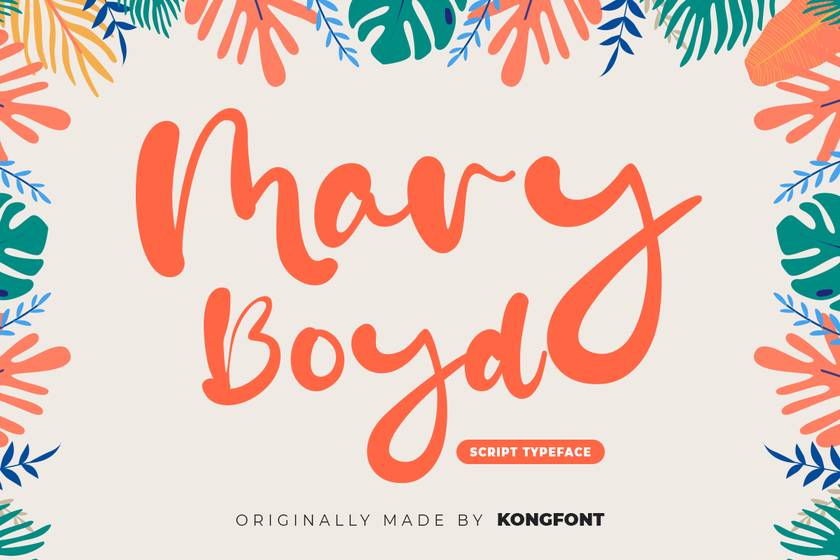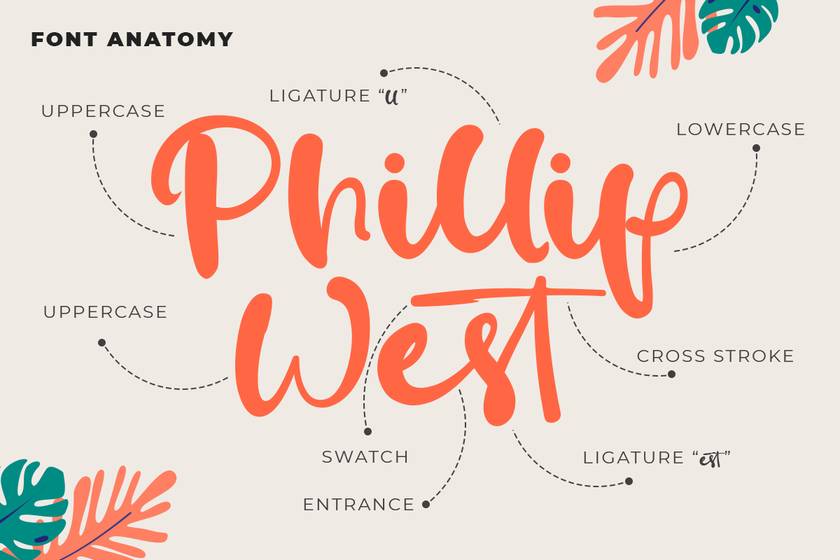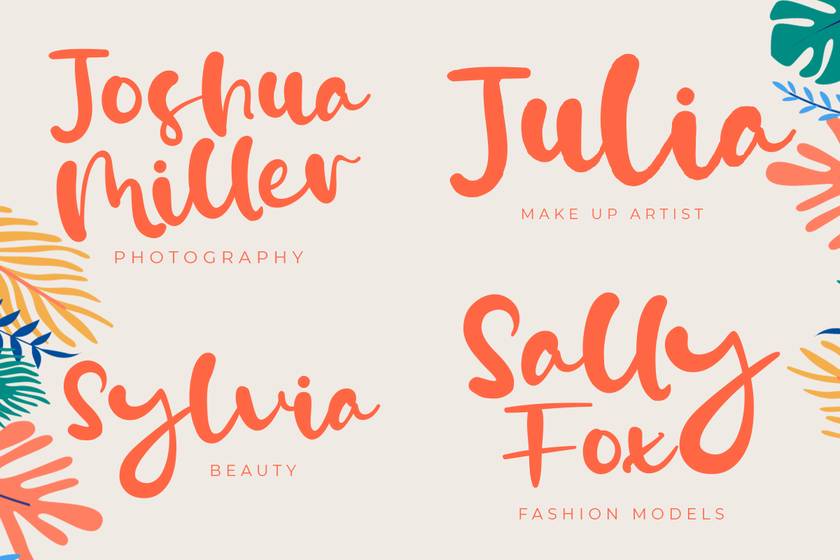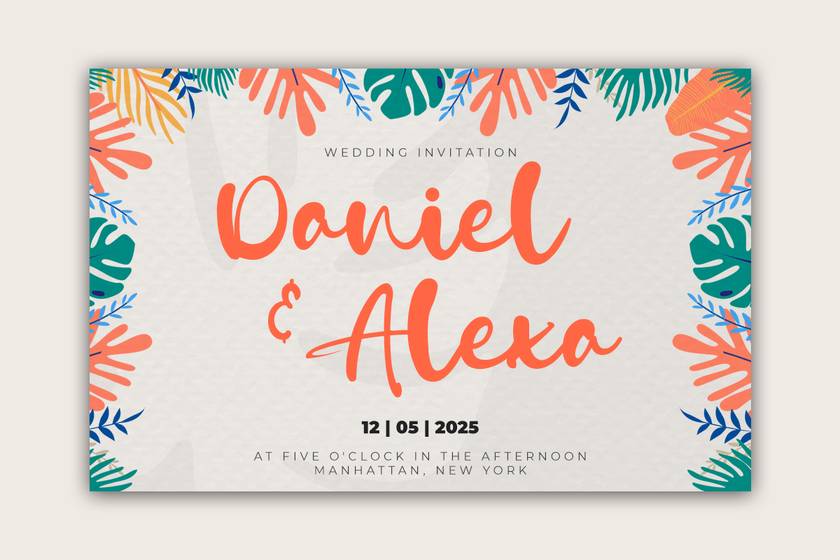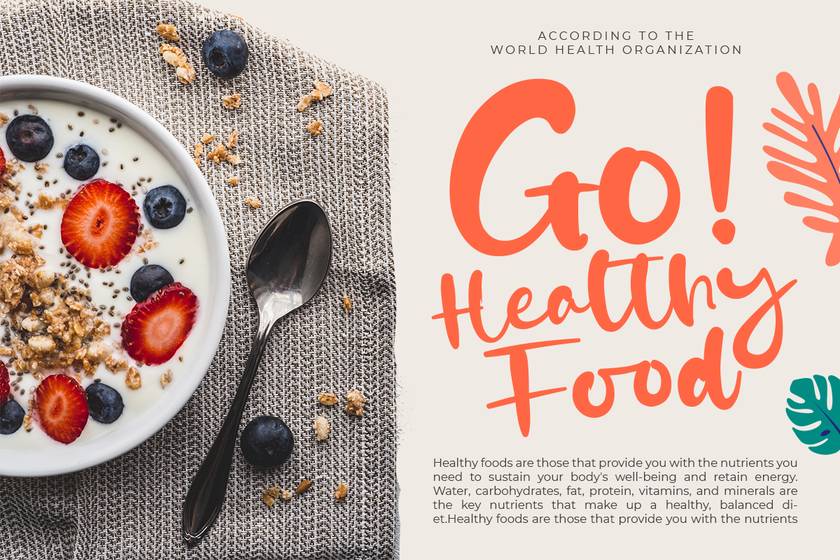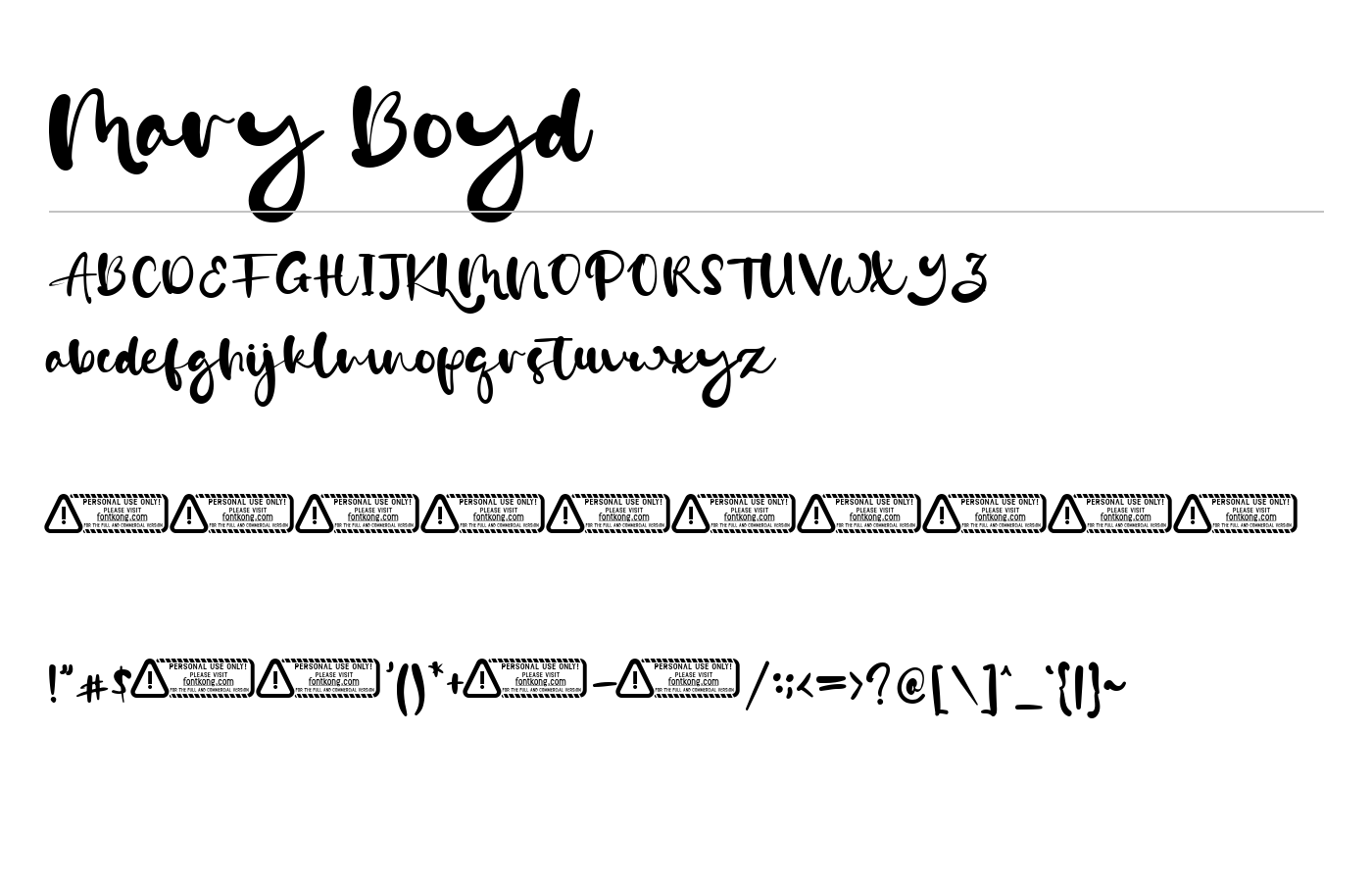
Mary Boyd is a charming, handwritten script font with a smooth, flowing style and playful character shapes. Its medium weight and casual curves give it a friendly and approachable feel, making it perfect for personal branding, invitations, and creative projects seeking a warm, human touch. This font shines in designs where a lively, informal elegance is desired.
Mary Boyd Font